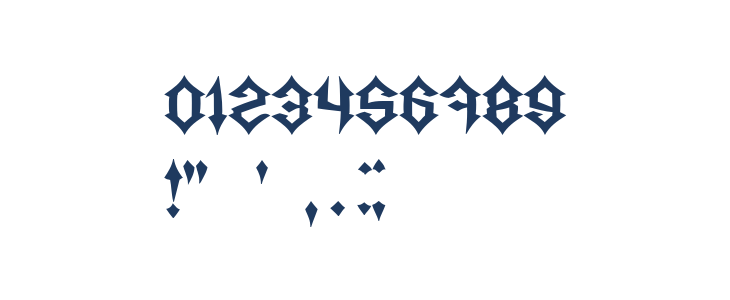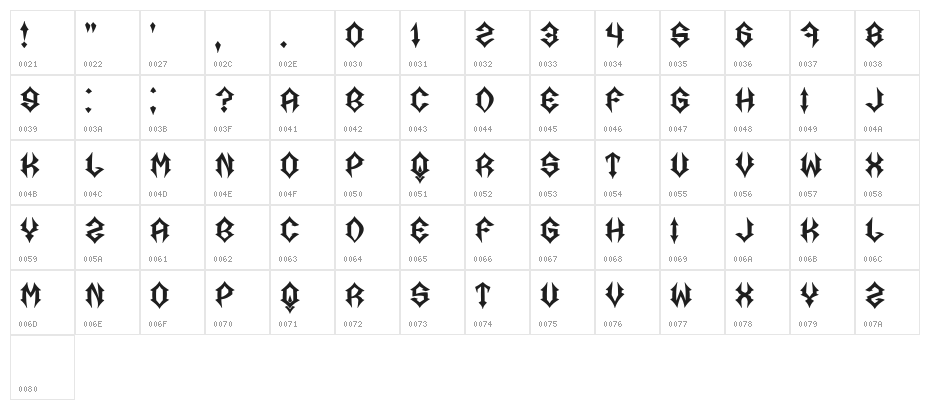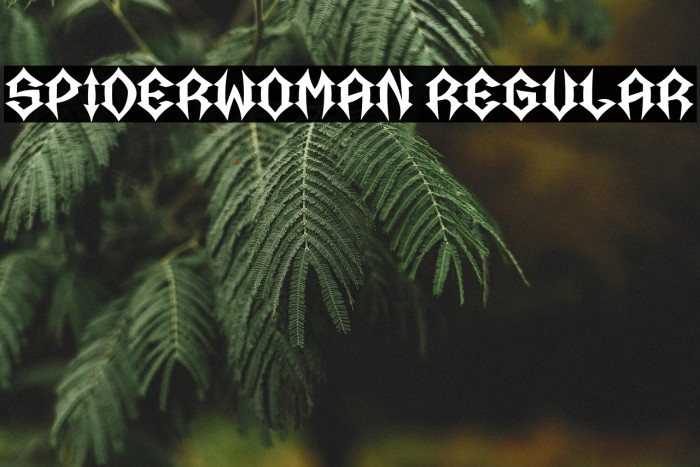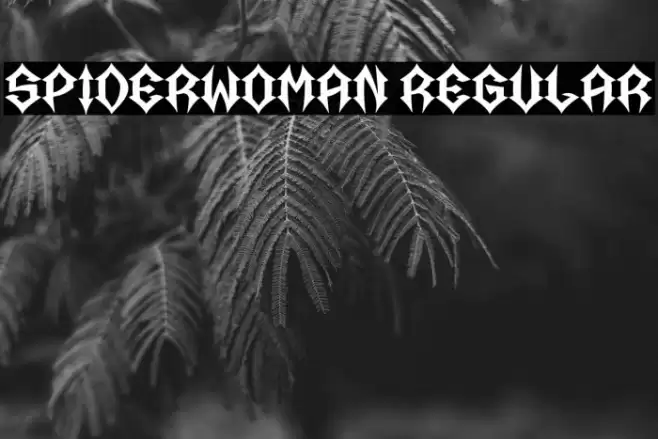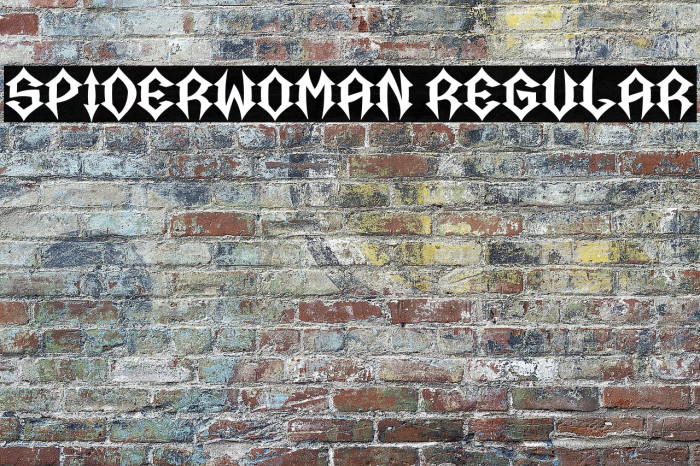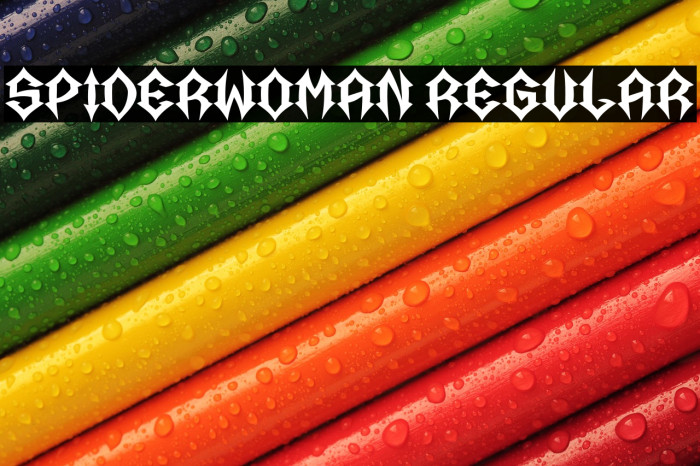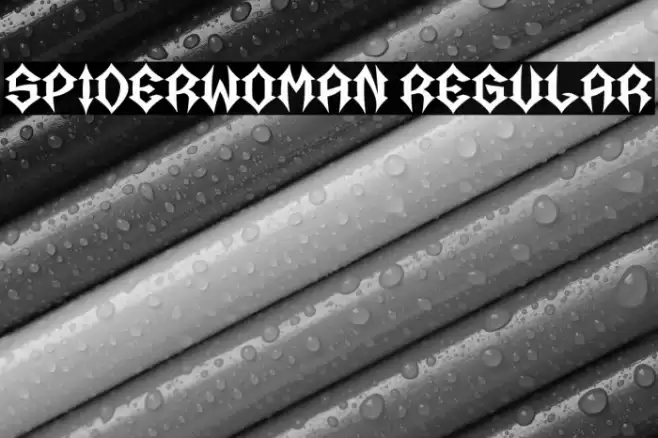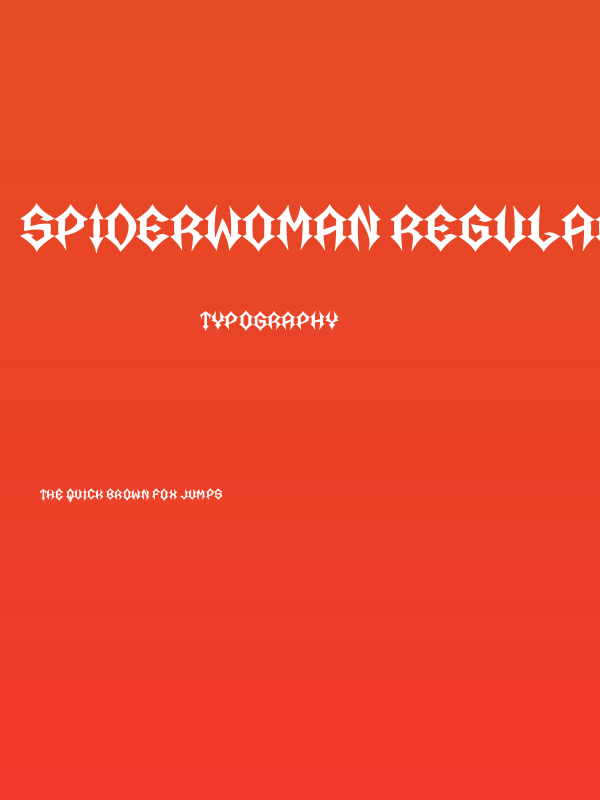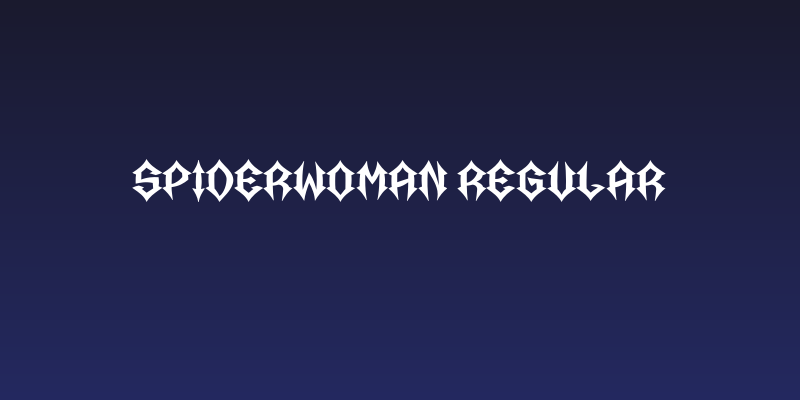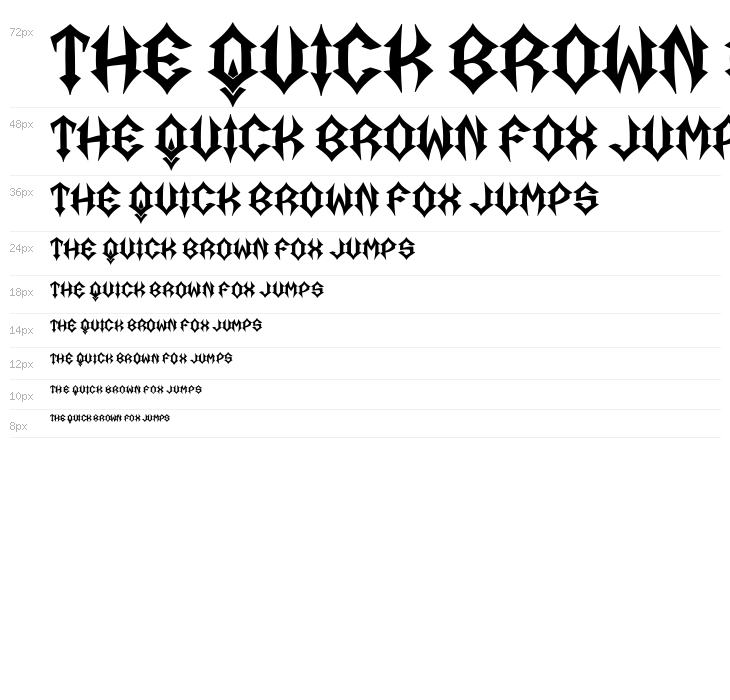
Spiderwoman Regular Font
Spiderwoman Regular Description
This font features a bold, angular design with sharp edges and pointed serifs, reminiscent of gothic or medieval styles. The characters are highly stylized, with a dramatic flair that suggests movement and energy. The uppercase and lowercase letters maintain a consistent aesthetic, with exaggerated angles and a strong visual impact. Numbers and special characters follow the same design principles, ensuring uniformity across all glyphs. This font's unique style makes it suitable for projects that require a strong, eye-catching typeface.
| Proposed Projects | Ideal for use in posters, album covers, video game titles, and branding that requires a dramatic and edgy look. |